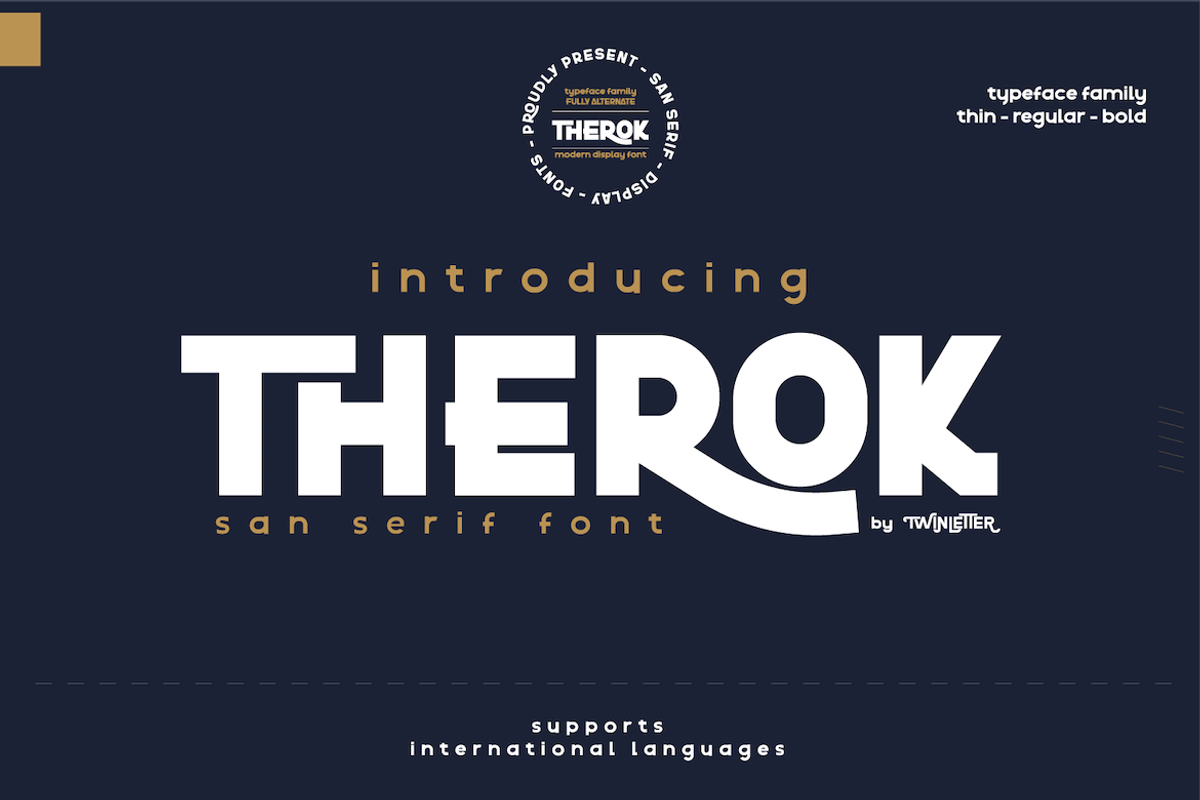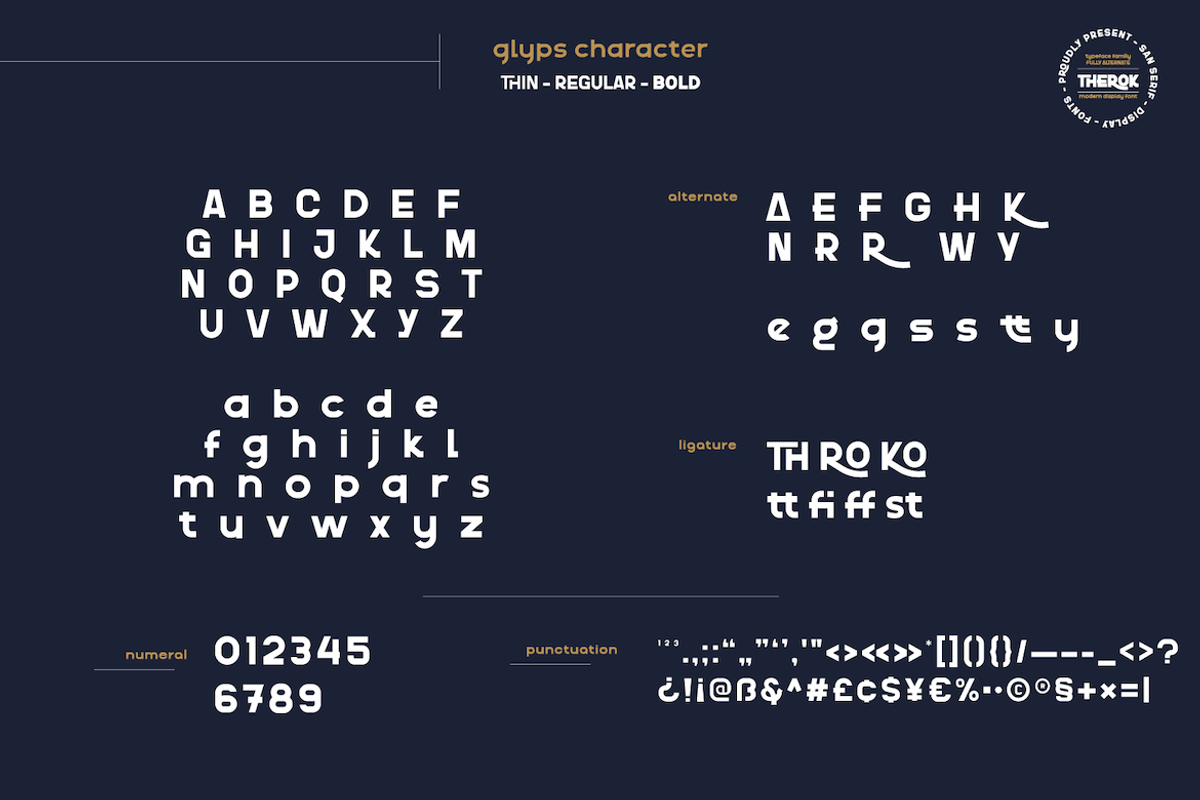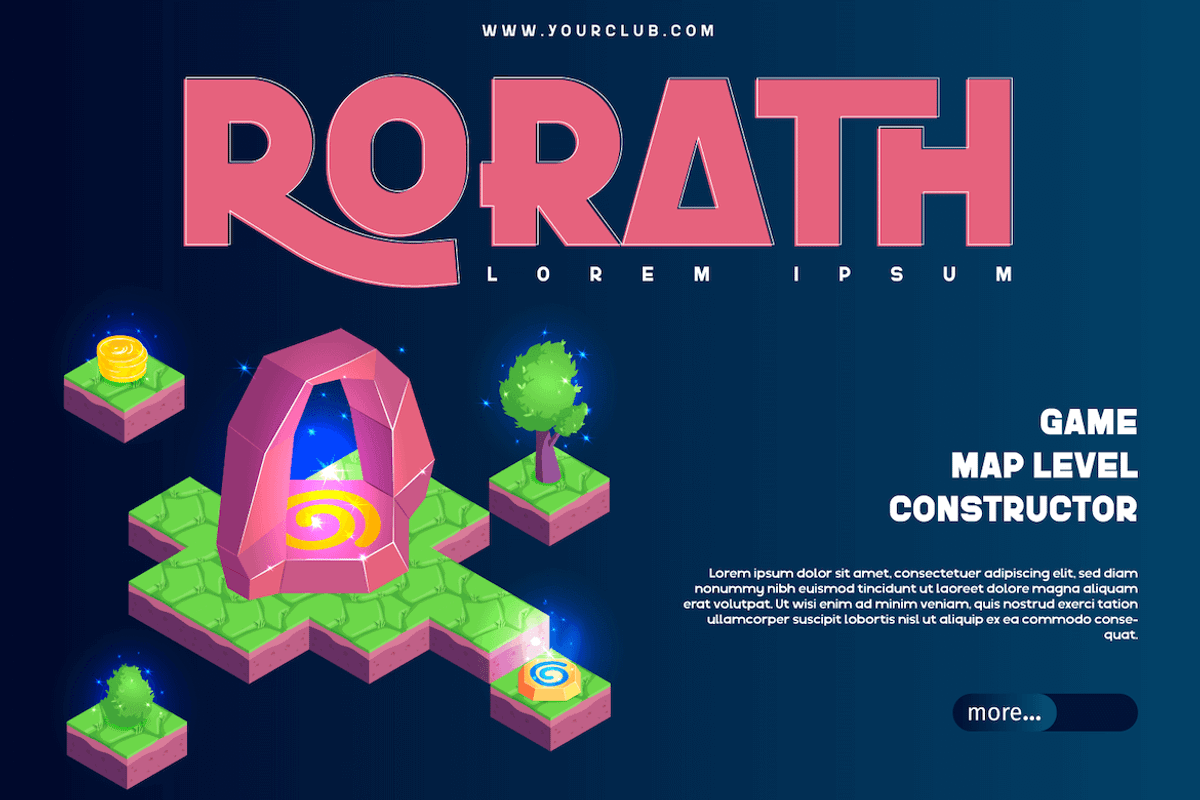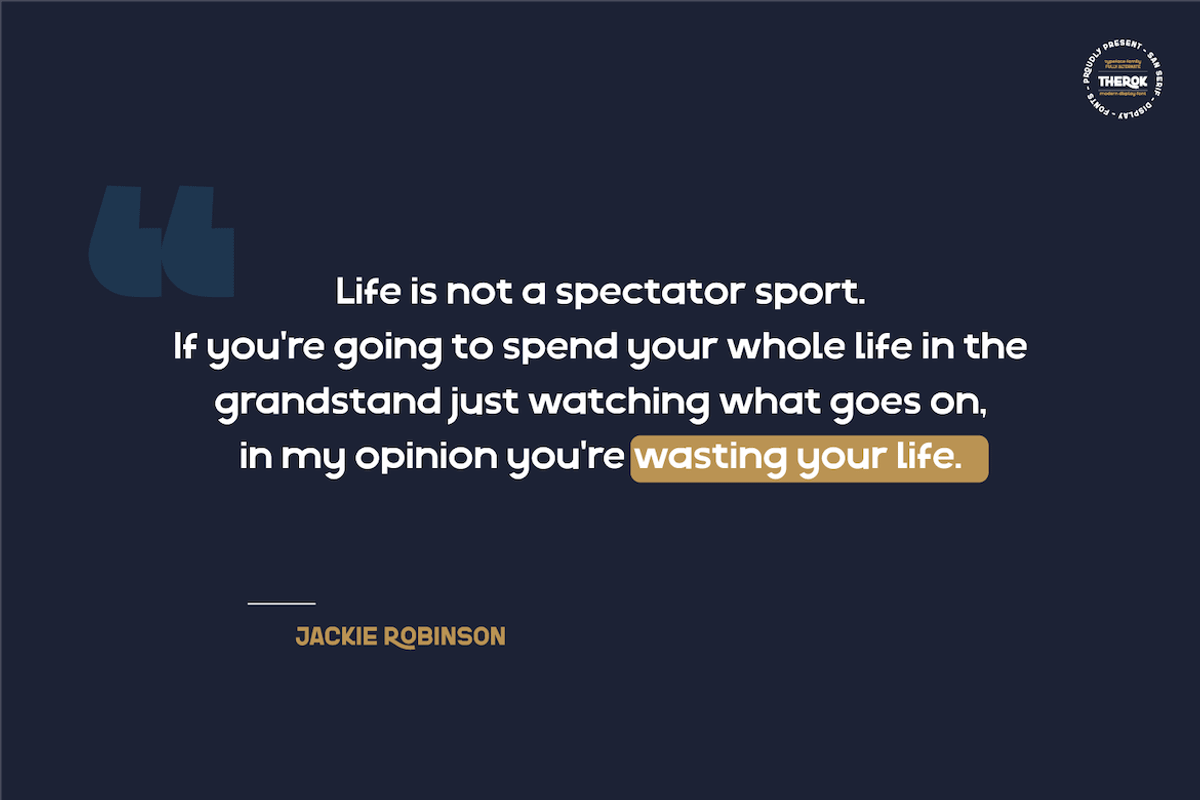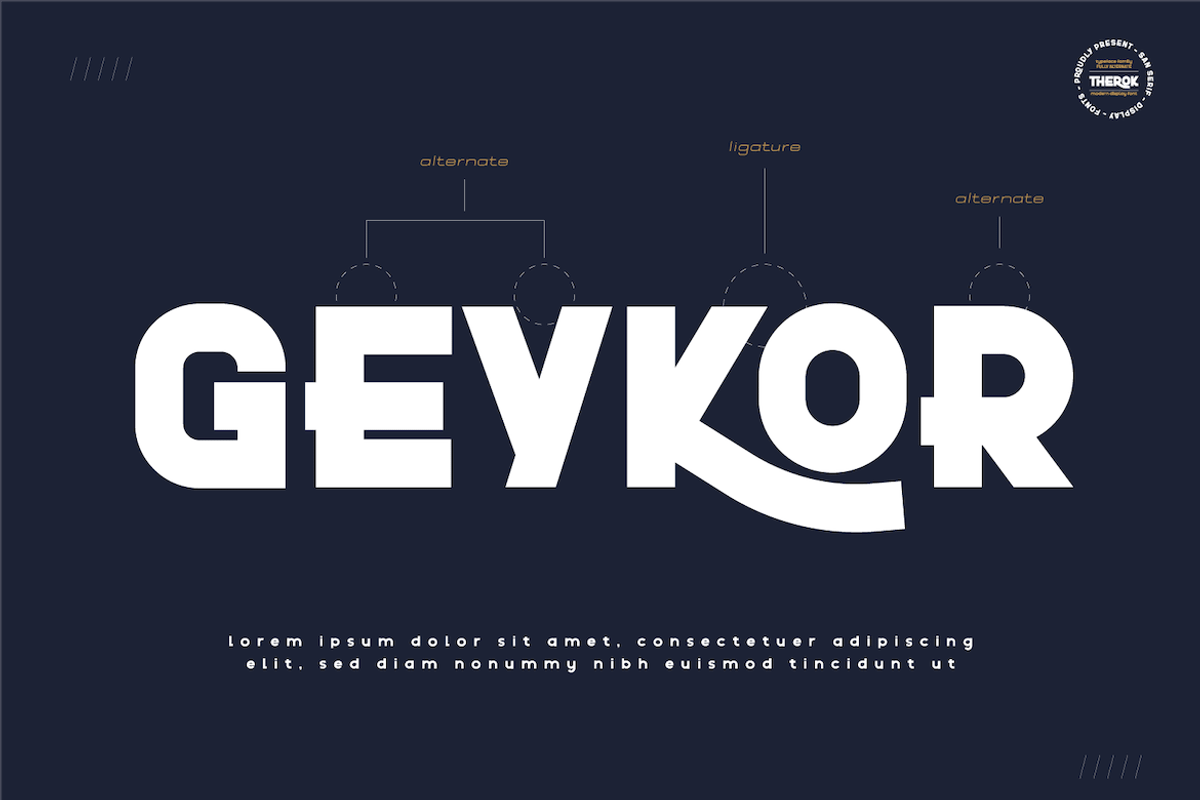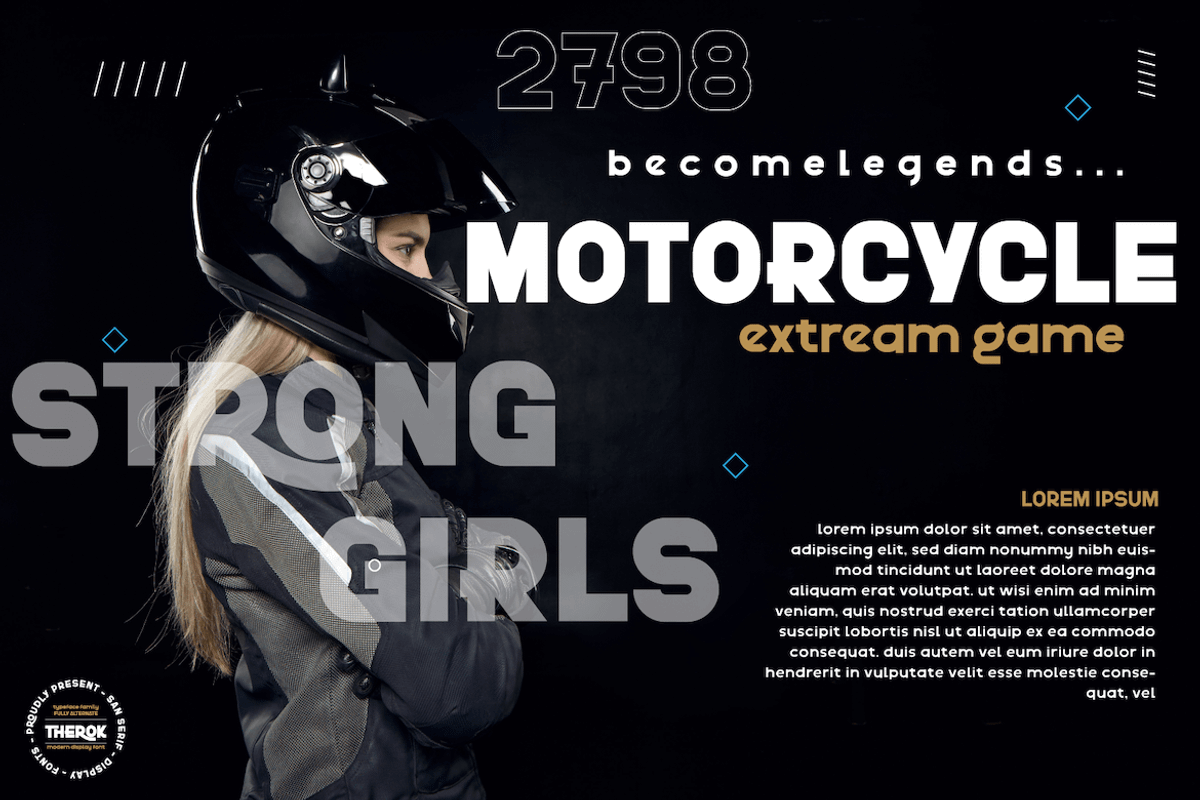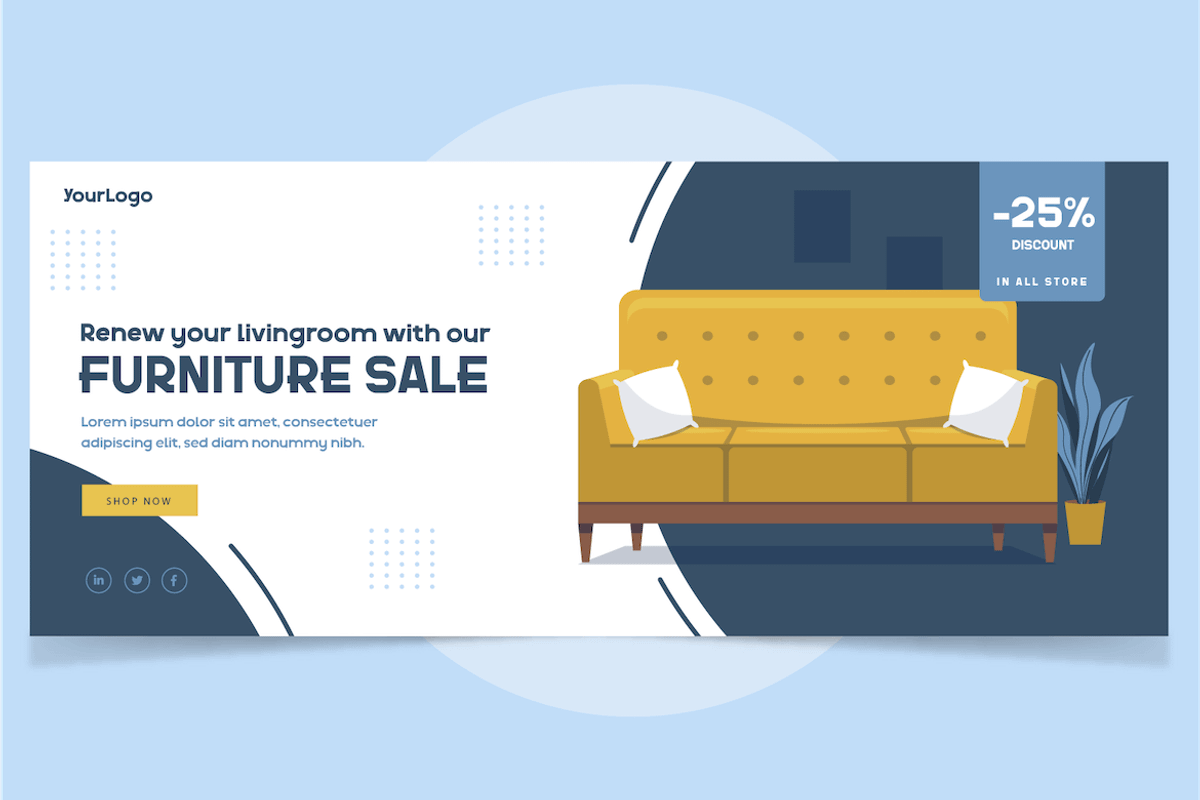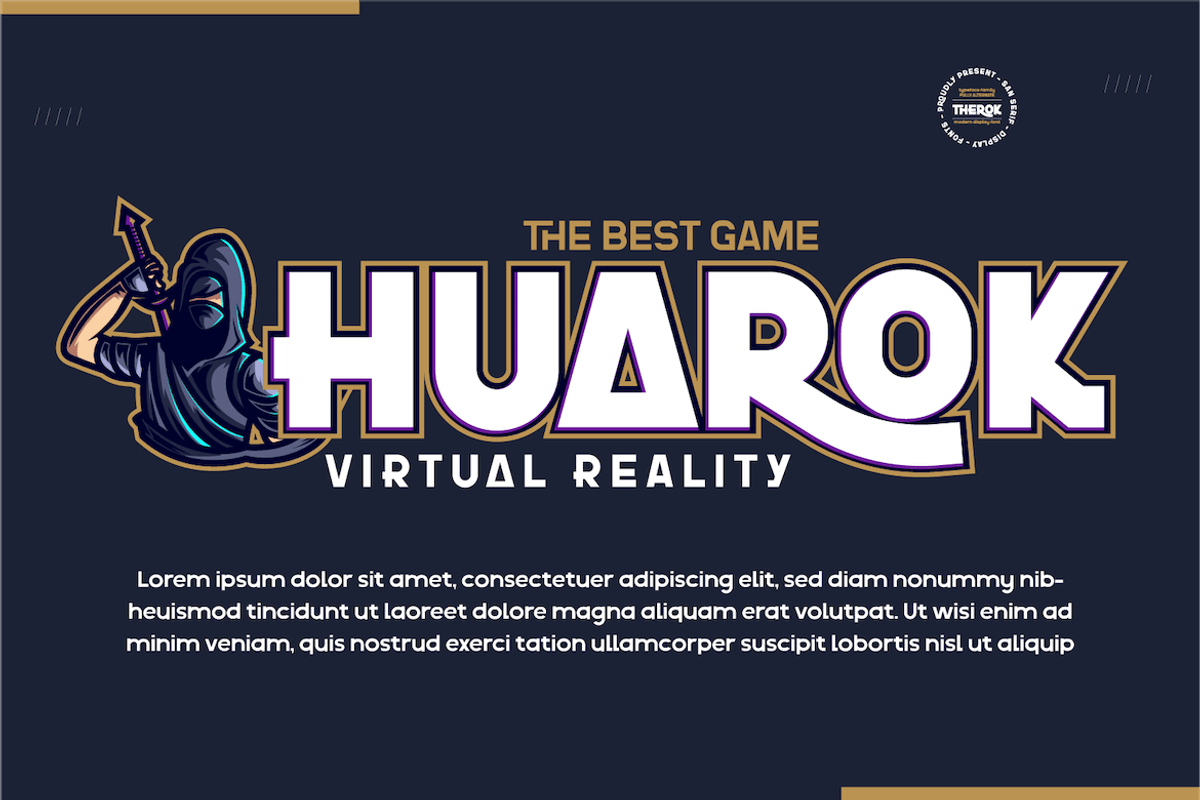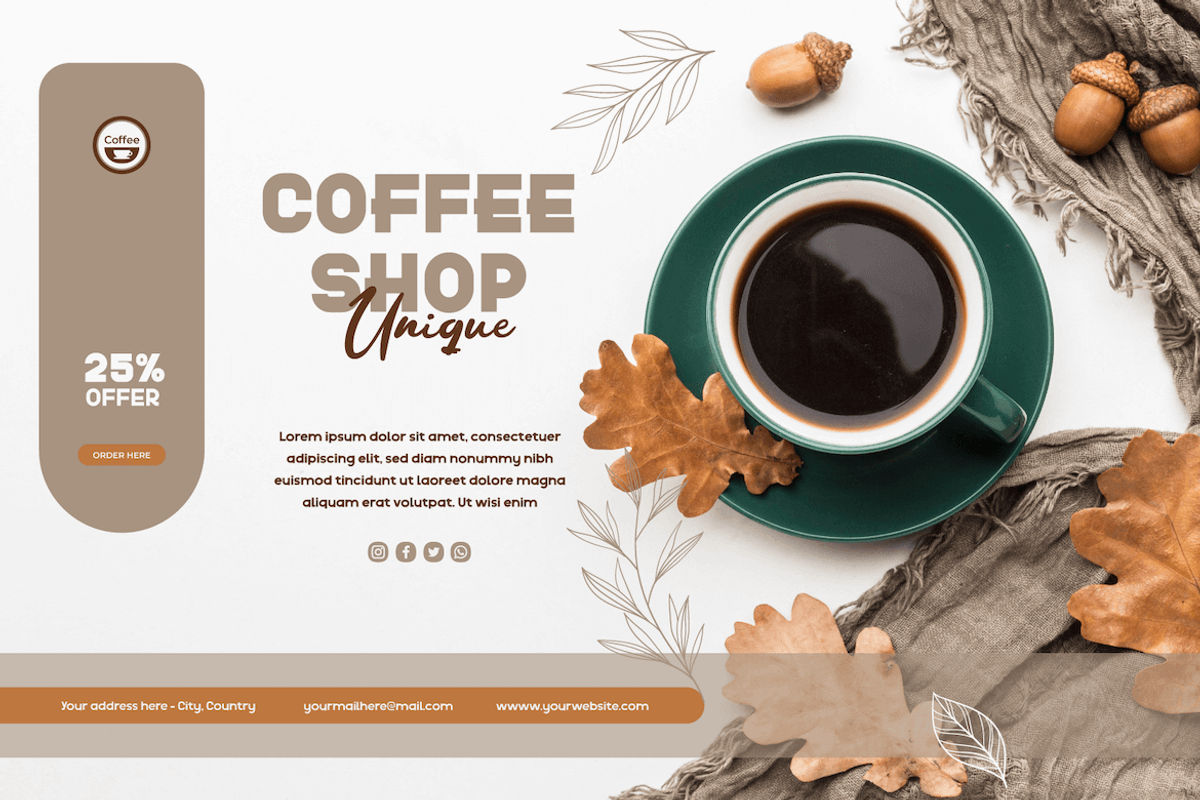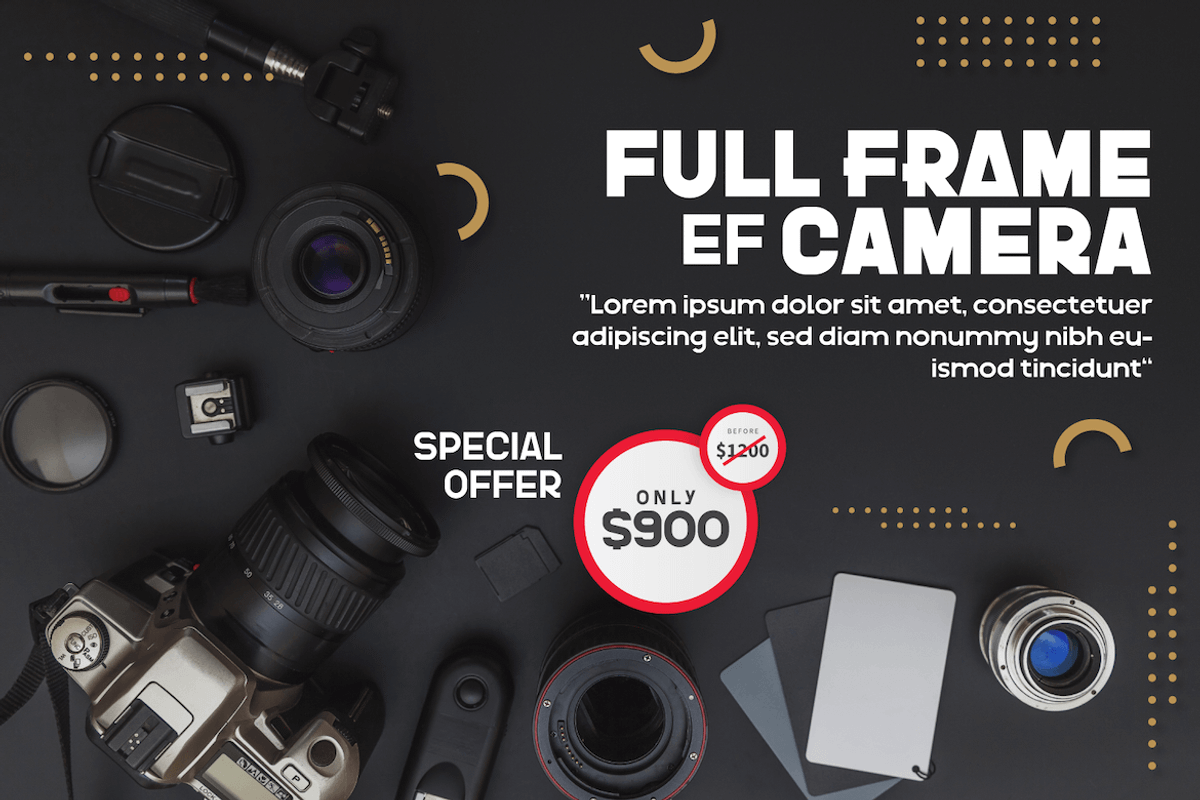
Therok
Introducing our newest font named Therok.
We design this san serif family font with attention to the combination of each letter to create an elegant impression and appearance so that it makes it easy for you to use it according to what you need, both formal and non-formal needs. This font is powerful for your very extraordinary project. This font is perfect for games, sporting events, branding, banners, posters, movie titles, food and beverage, technology, quotes, clothing, logotypes, and more.
of course, your various design projects will be perfect and extraordinary if you use this font because this font is equipped with a font family, both for titles and subtitles and sentence text, start using our fonts for your extraordinary projects.